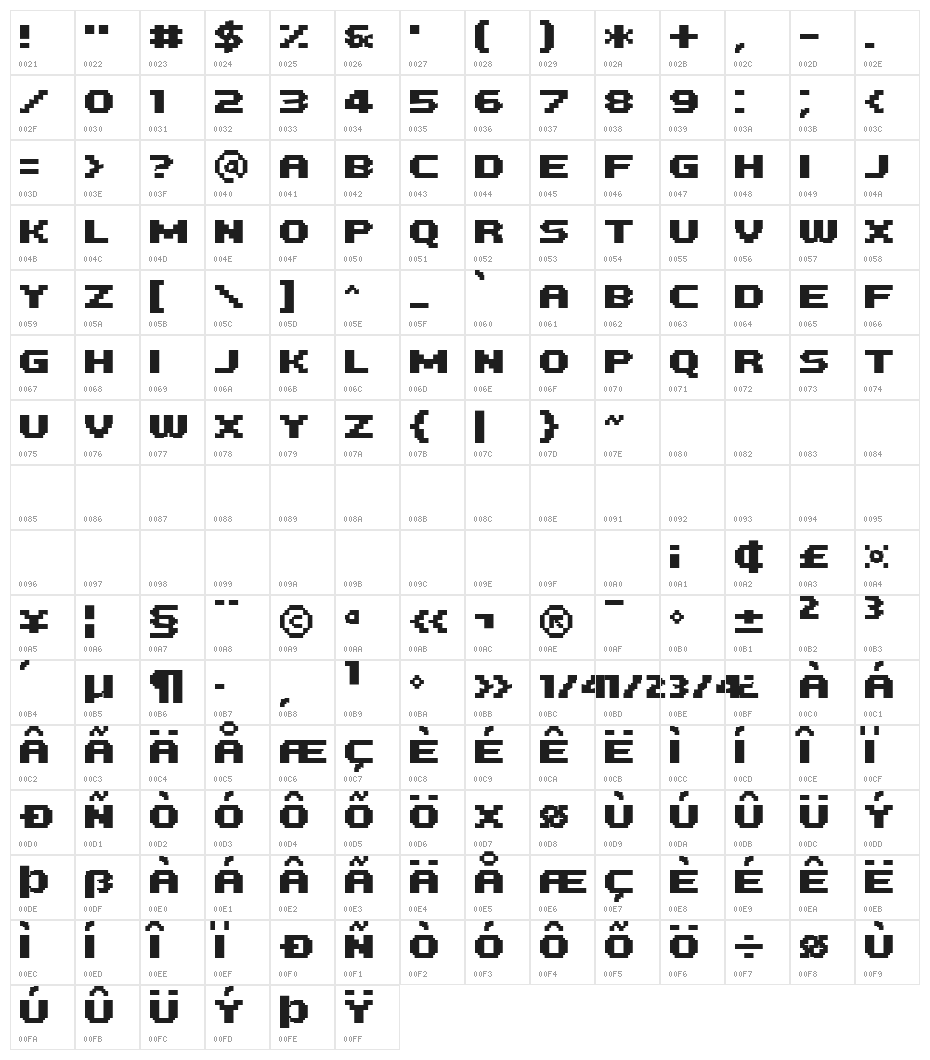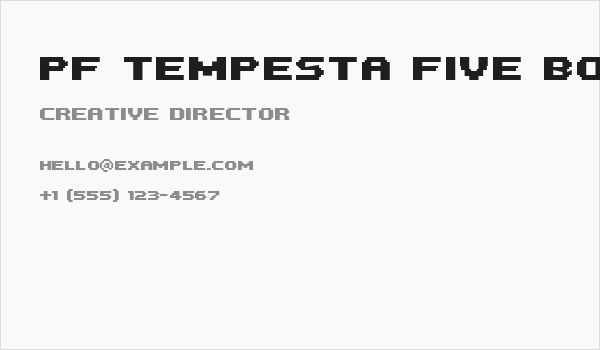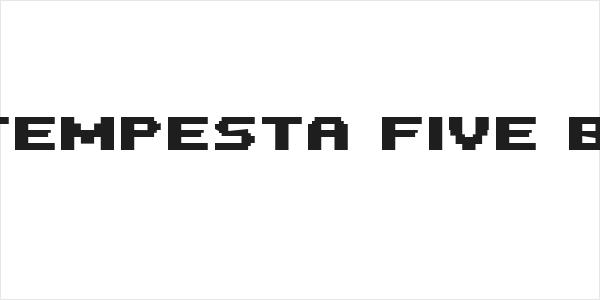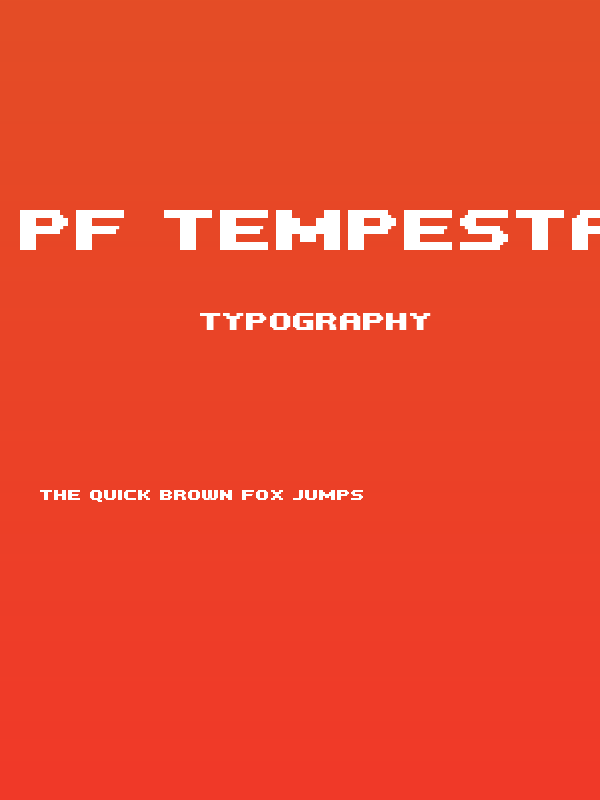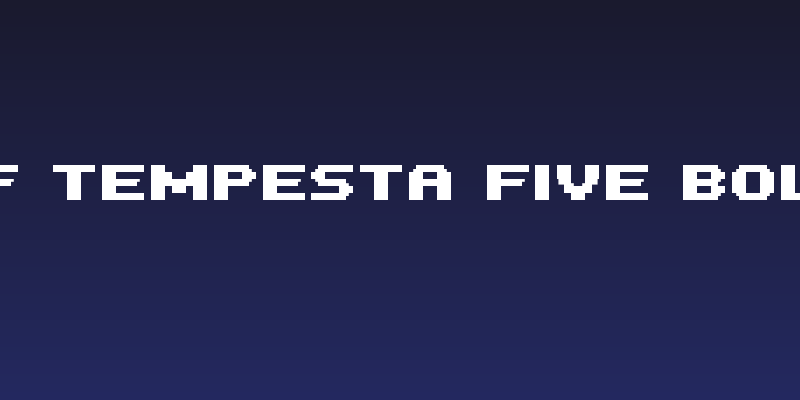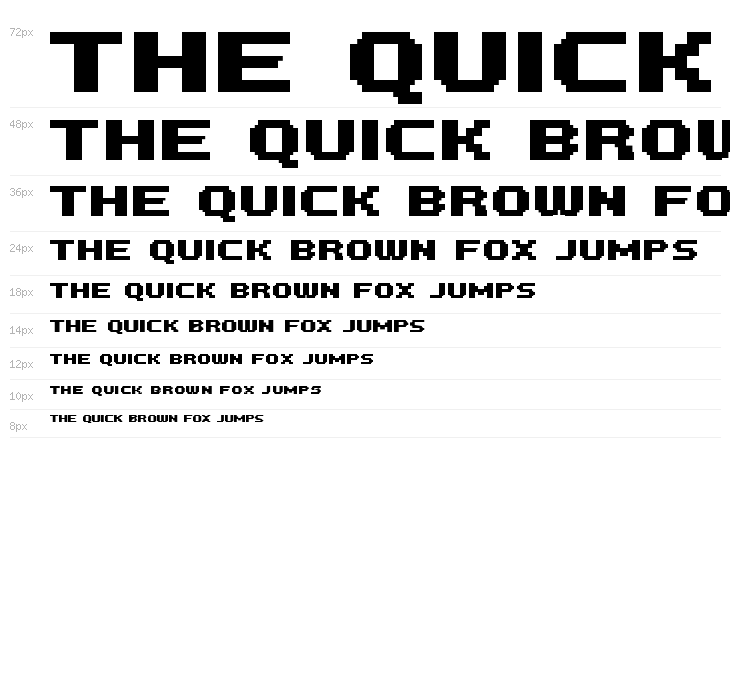
PF Tempesta Five Bold Font
PF Tempesta Five Bold Description
This font features a bold, pixelated design reminiscent of classic video game graphics. Each character is constructed with a blocky, geometric style, giving it a digital and retro feel. The uniformity in height and width across characters creates a cohesive and structured appearance. The font is highly legible, with distinct separation between each letter, making it suitable for display purposes. Its nostalgic aesthetic is perfect for projects that aim to evoke a sense of vintage technology or gaming culture.
| Overall Style | Retro, Digital |
| Proposed Projects | Ideal for video game design, retro-themed posters, digital art, and technology-related branding. |